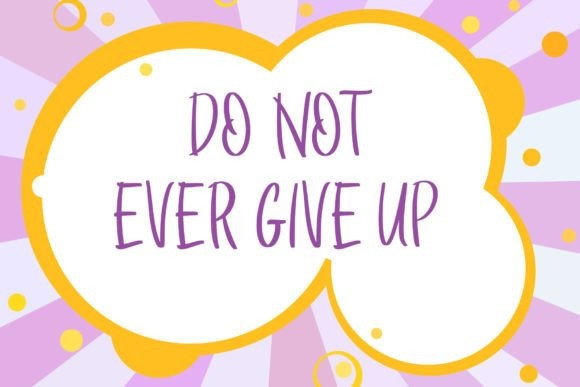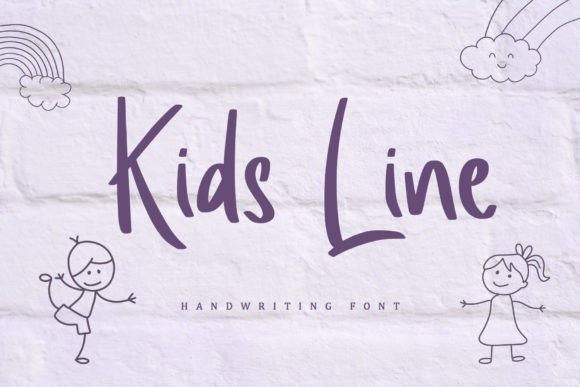
Kids Line Font
Kids Line Font is a cute and friendly handwritten font. Whether you’re using it for crafts, digital design, presentations, or making greeting cards, this font has the potential to become your favorite go-to font, no matter the occasion!